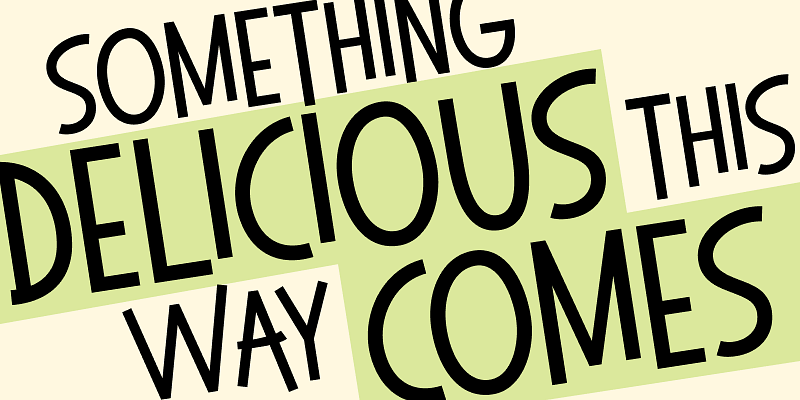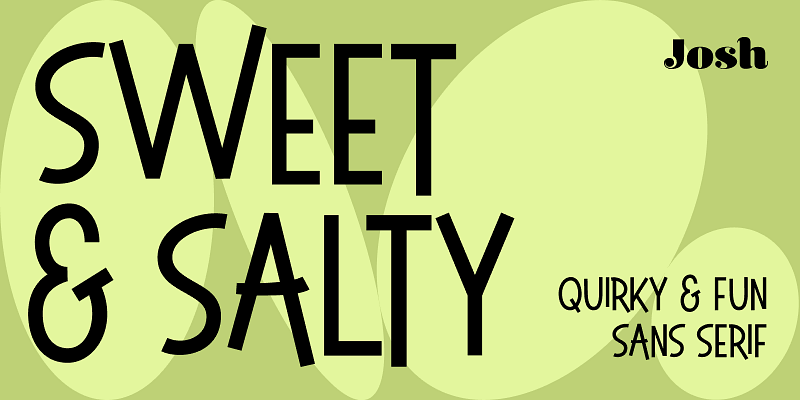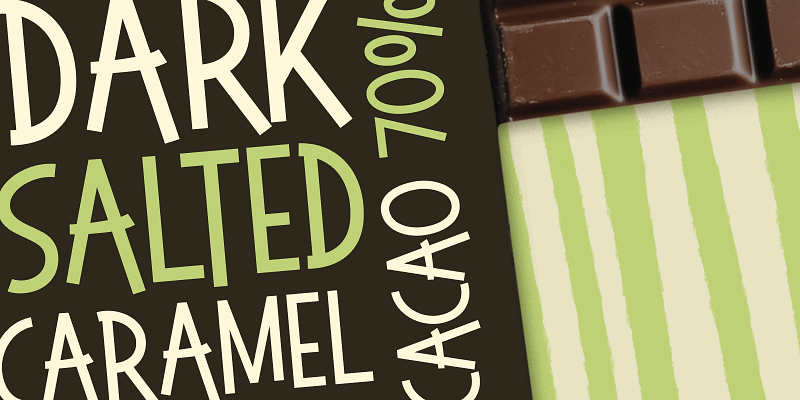
Sweet & Salty is a quirky, fun sans serif typeface with a bouncy baseline. Inspired by mid-century type, it adds a vintage flavor to your designs. Use it for packaging, logos, craft projects, posters, bold headlines, book covers, and more. Sweet & Salty is rhythmically asymmetric and slightly wonky, which makes it punchy. Start creating something fun and funky with the versatile Sweet & Salty today!